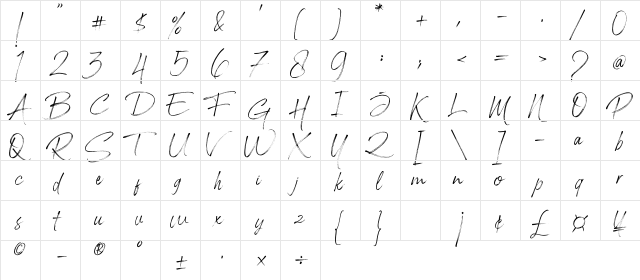
Optimust Regular
| Designer | Omotu Studio 2020 |
Design Context for Optimust Typeface
Optimust is a composed and adaptable typeface that performs quietly and consistently across a wide range of design contexts.